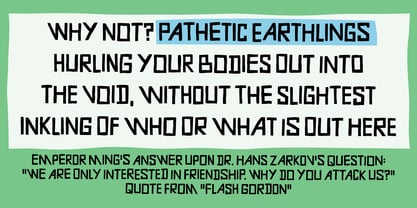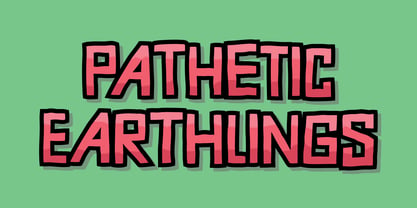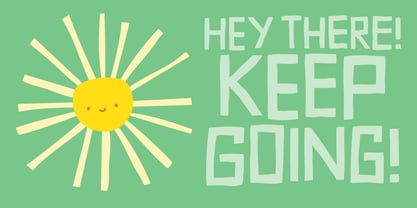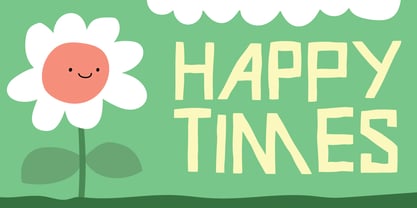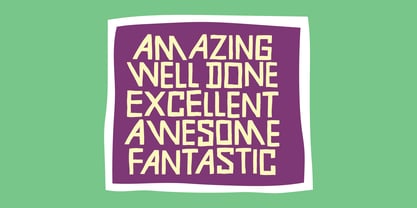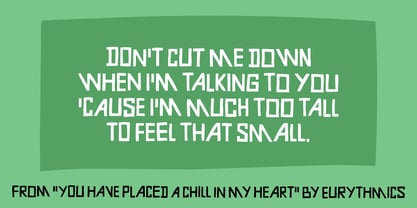
Pathetic Earthlings
by Bogstav
The Pathetic Earthlings Font Family was designed by Jakob Fischer and published by Bogstav. Pathetic Earthlings contains 2 styles and family package options. More about this family
Pathetic Earthlings was originally thought as a sci-fi font (due to the original sketches and the reference to a quote from “Flash Gordon”)
But as I drew (and changed) the letters, I held on to the organic, handmade feeling. The result, I guess, is a hybrid between sci-fi and brush - but I will let you be the judge!
Each letter comes in 5 different versions, enough to make your text lively and organic!
Designers: Jakob Fischer
Foundry: Bogstav